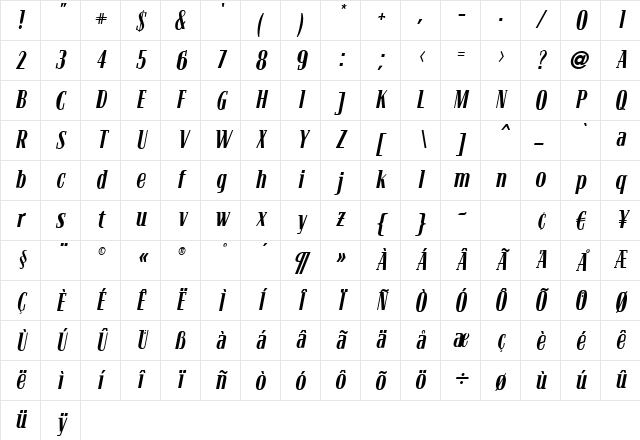
Bloc Kursiv
Style: Kursiv
Design Context for Bloc
Bloc is a composed and adaptable typeface that performs quietly and consistently across a wide range of design contexts. The slanted form adds forward momentum and visual energy.